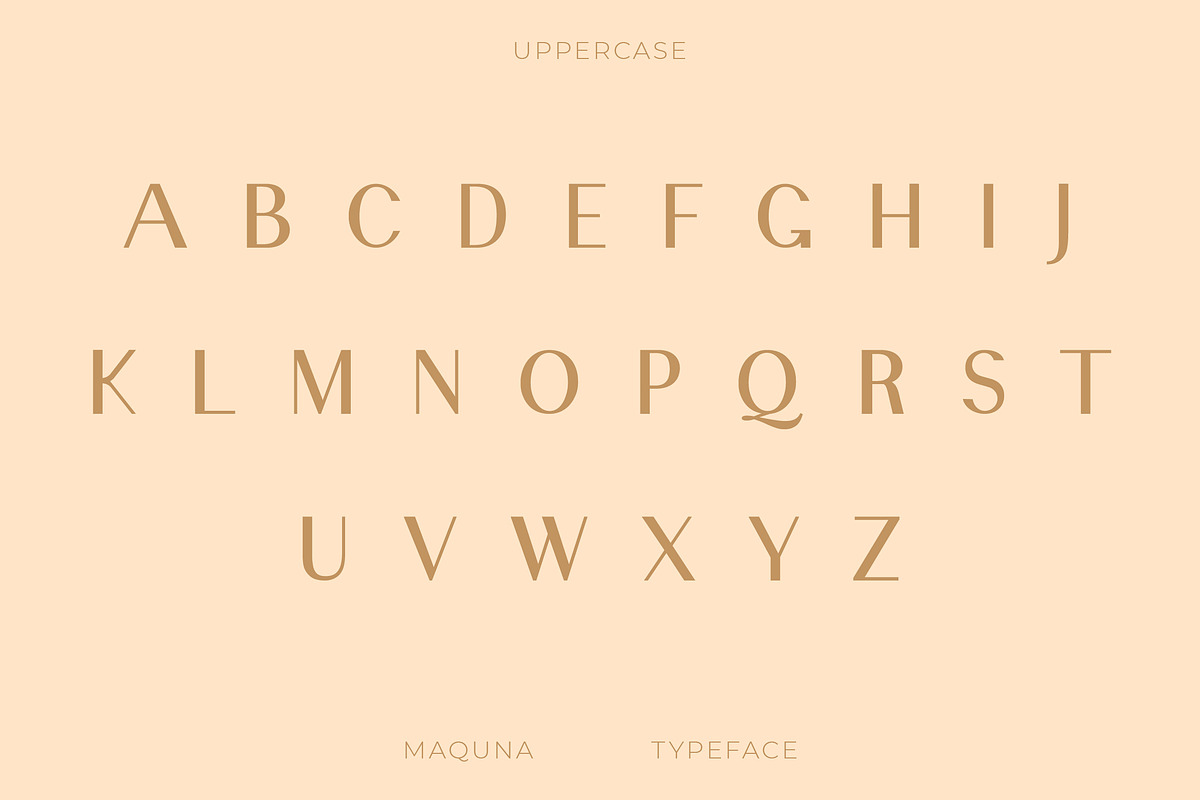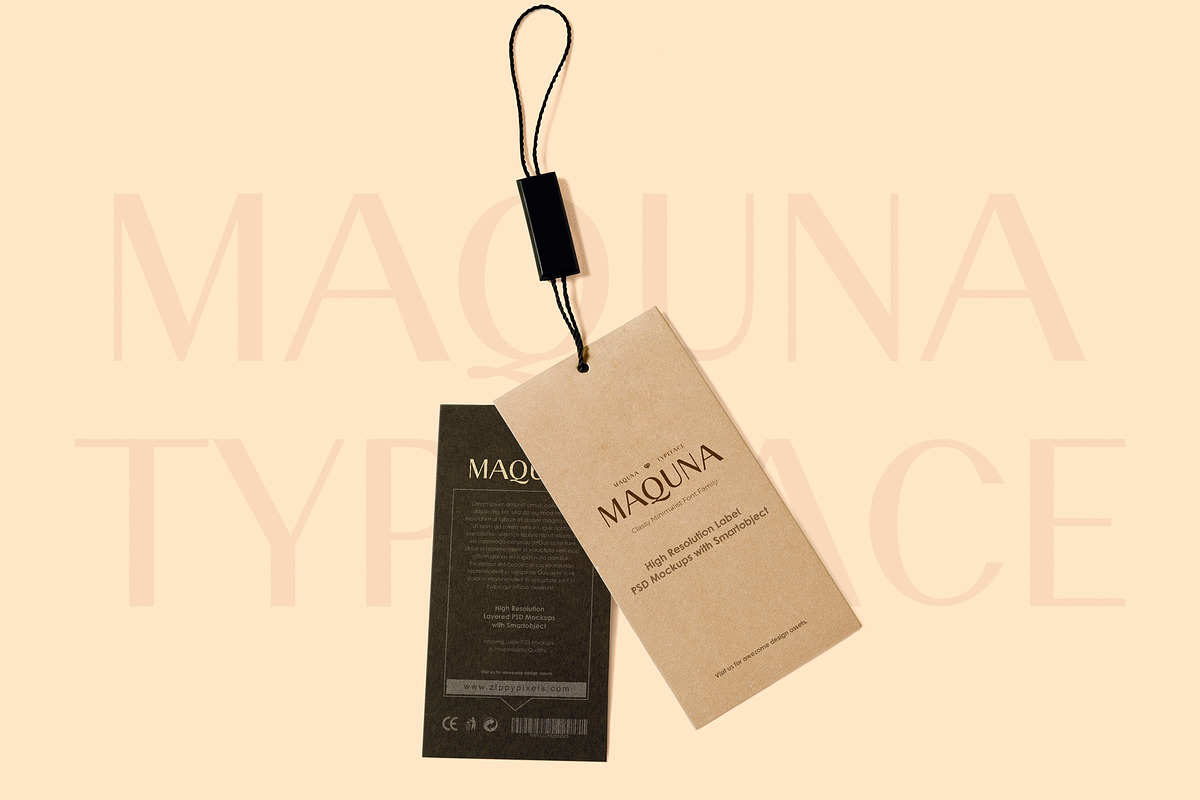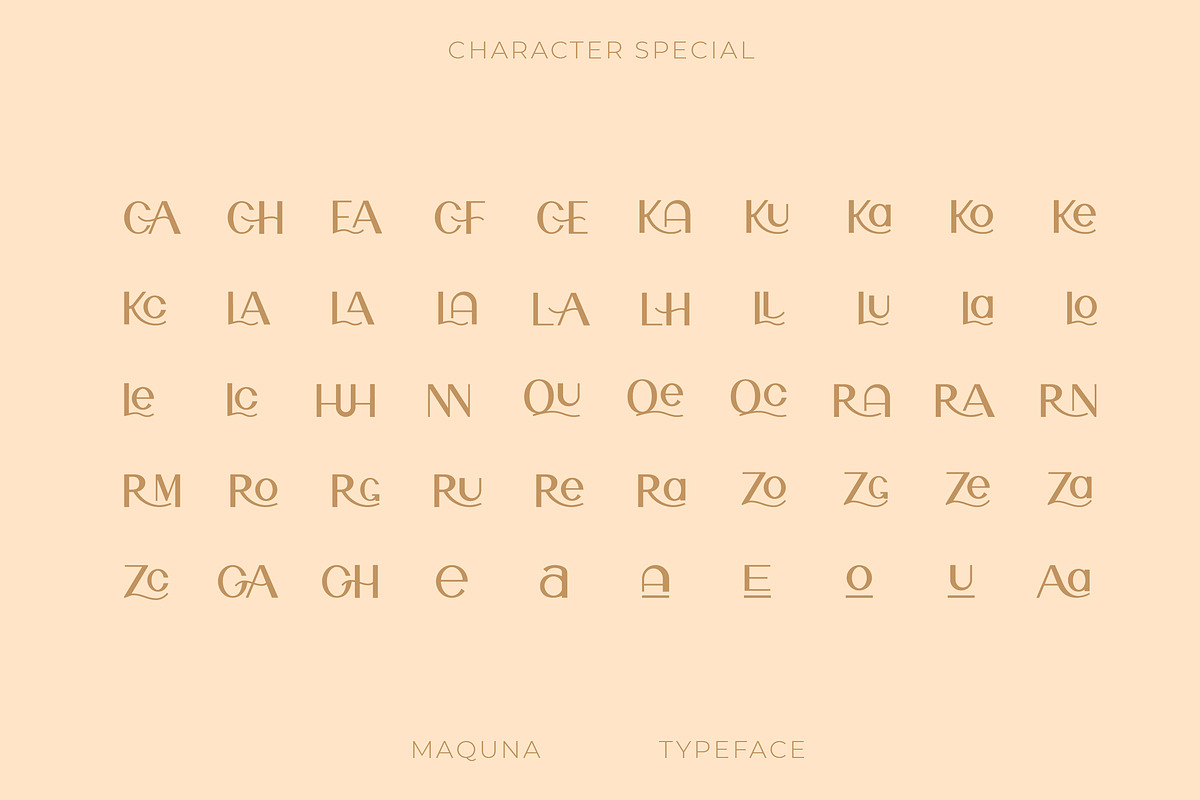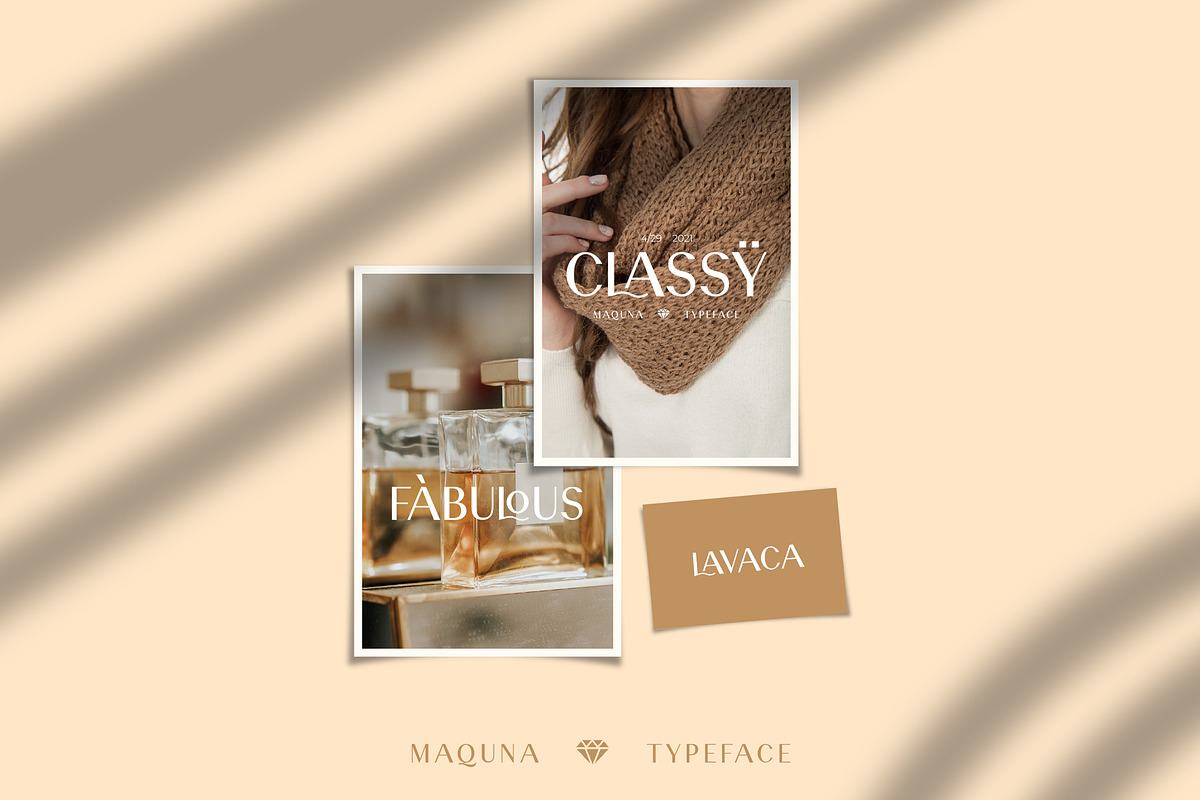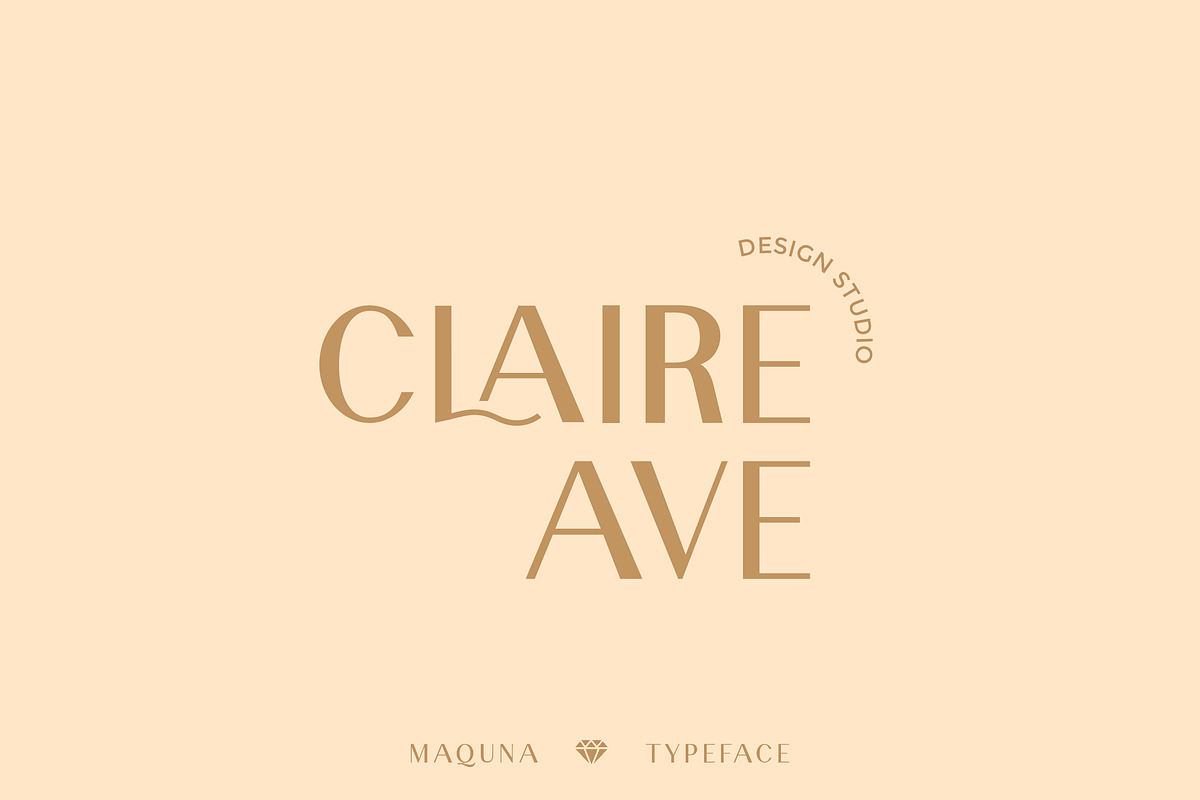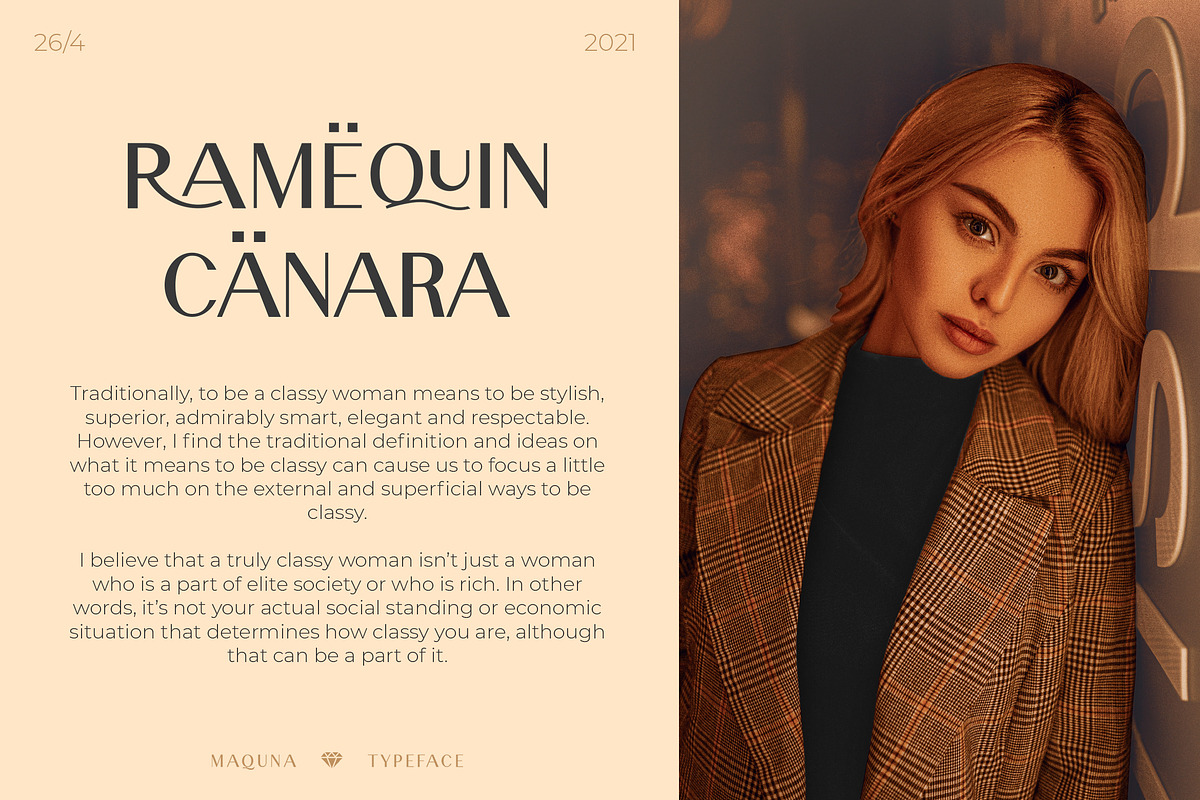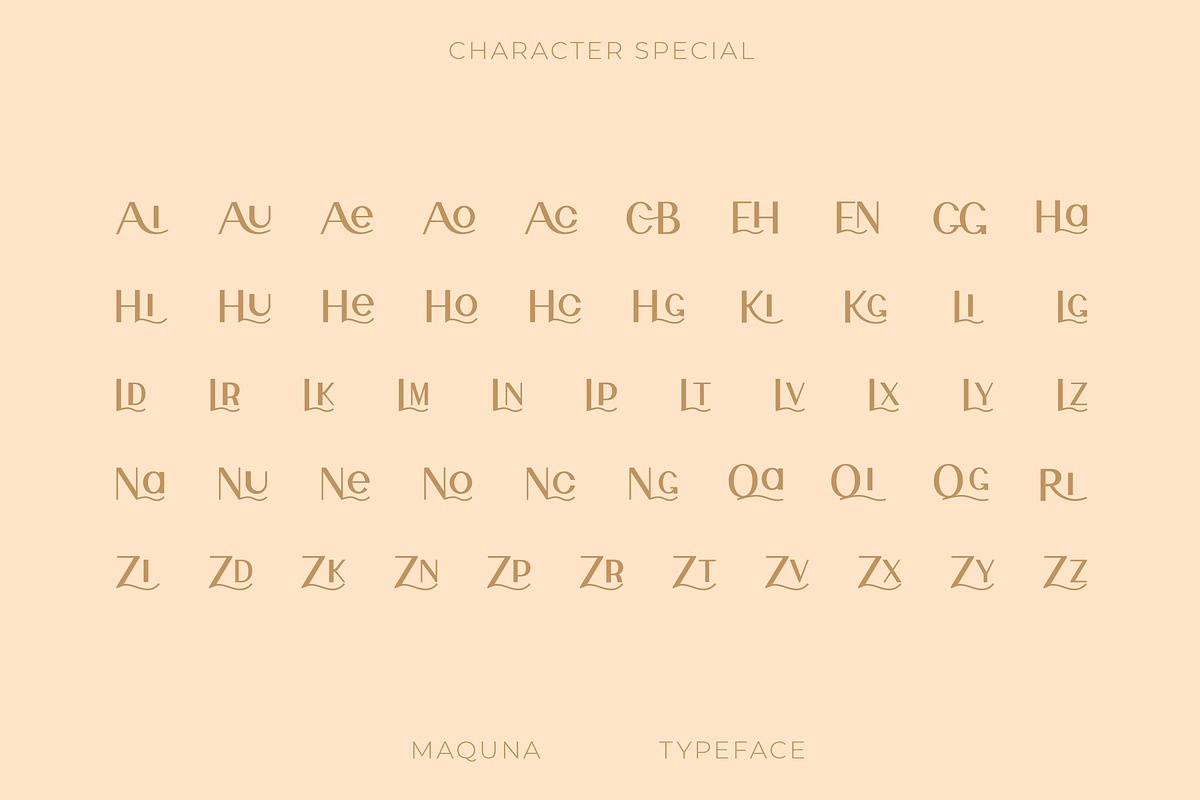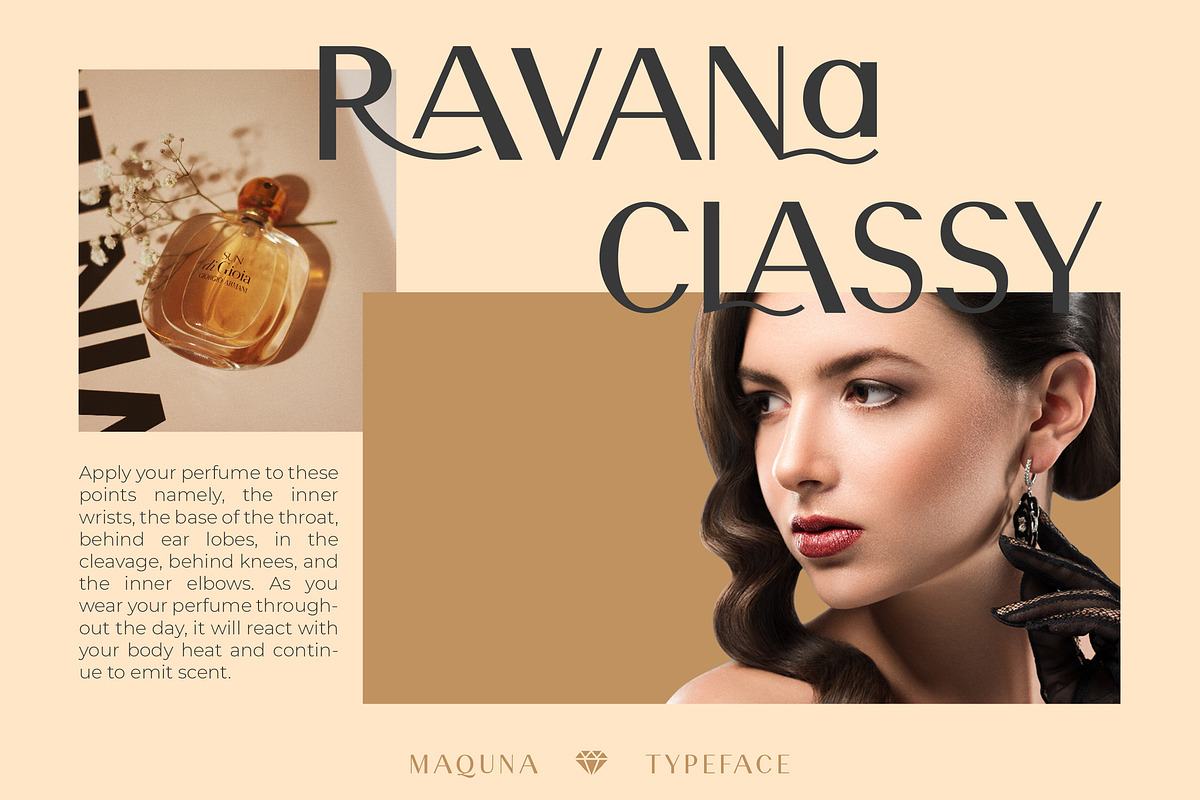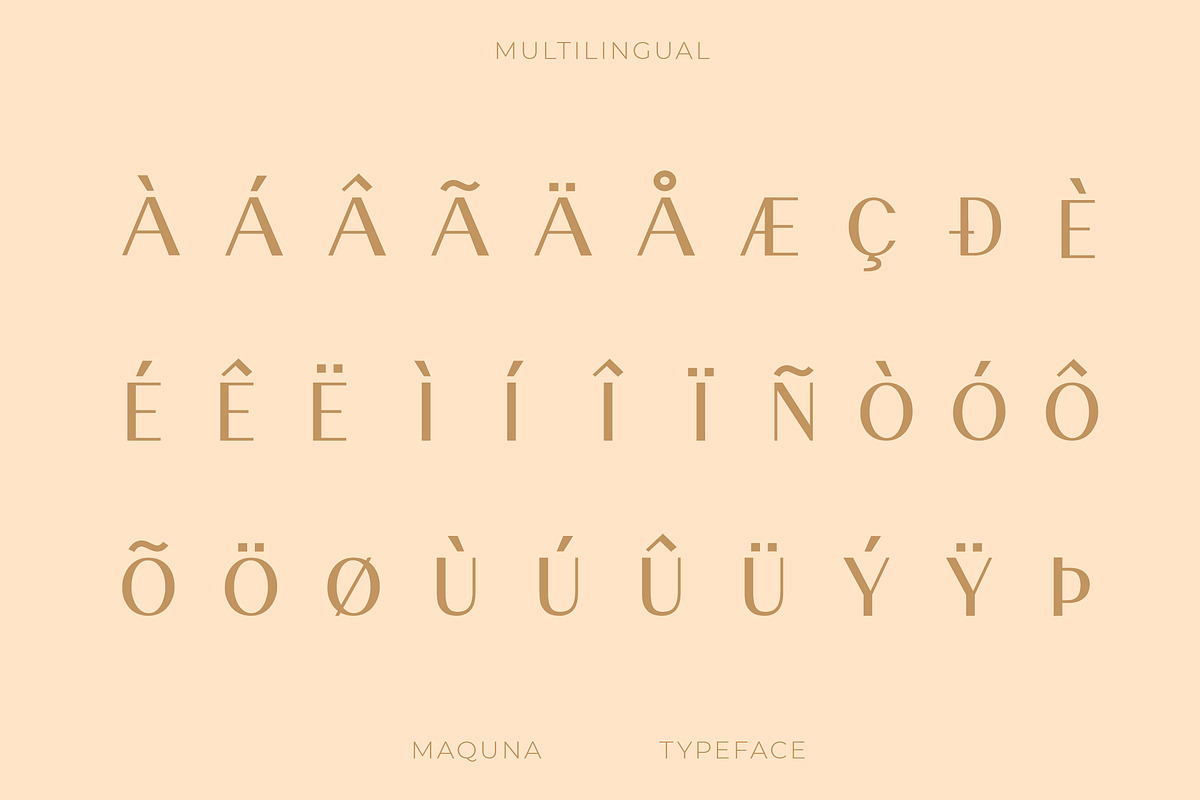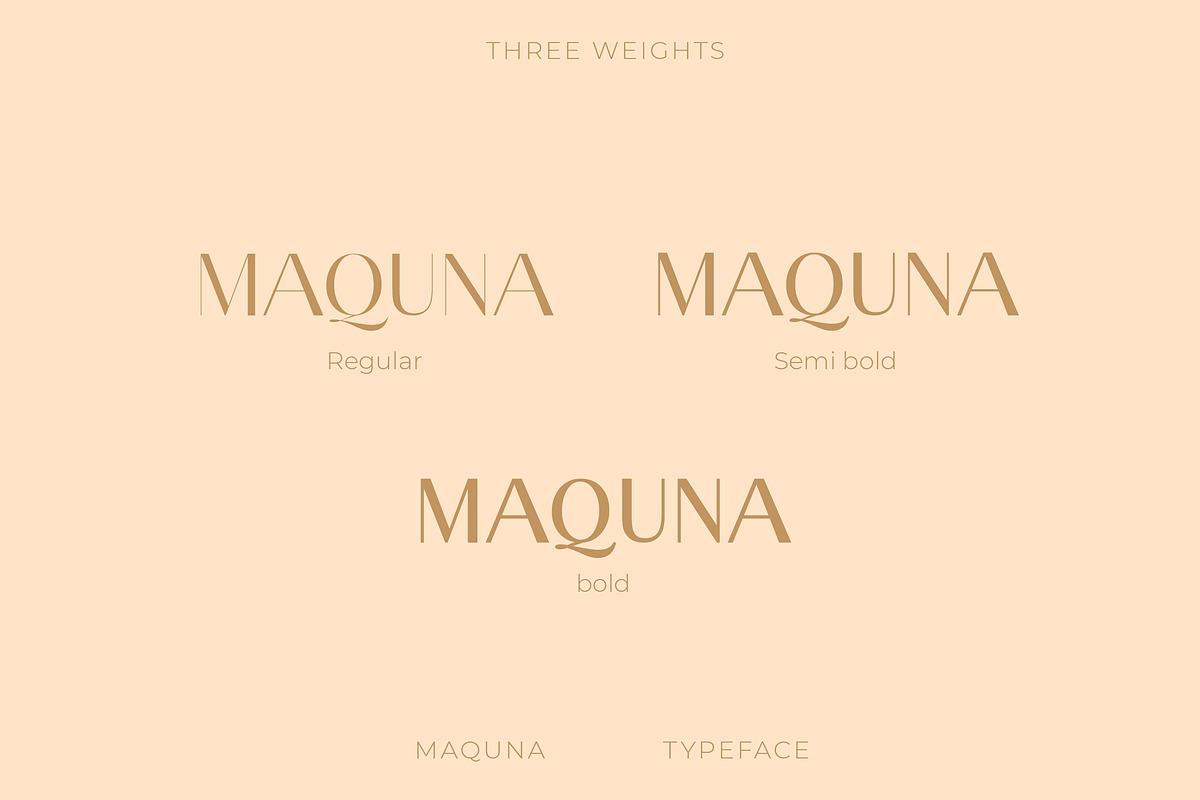
Maquna - Stylish Sans Serif Typeface
Introducing Maquna Sans serif, a simple Elegant modern typeface with beautiful ligatures, tons of special alternative glyphs, ornament and multilingual support. It's a very versatile font that works great in large and small sizes. Perfect for branding projects, Logo design, Clothing Branding, product packaging, magazine headers, or simply as a stylish text overlay to any background image.
- 3 Weights font